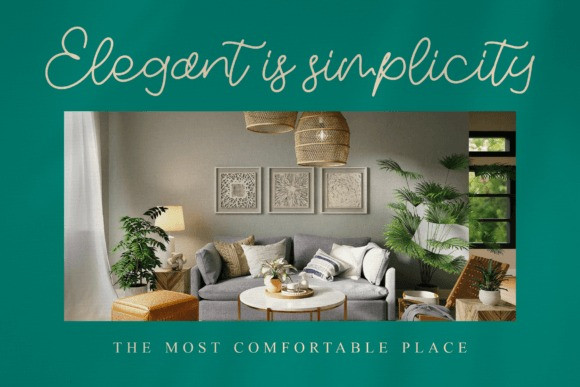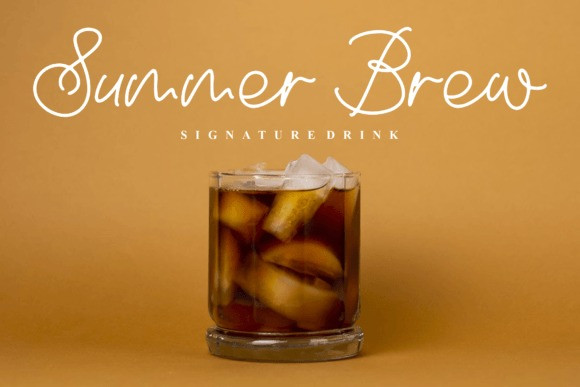
Emerald Micigan Font
Emerald Micigan – Monoline Script Font suitable for any projects such as logos, branding projects, homeware designs, product packaging, mugs, quotes, posters, shopping bags, t-shirts, book covers, name cards, invitation cards, greeting cards, labels, photography, watermark, special events, and all your other lovely projects that need a beautiful script taste.